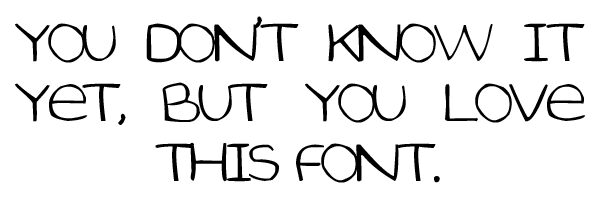
Aida Garmo - Small Size by Aida Garmo is a free handwritten font with tall, loose letters and a fine monoline stroke. Its rounded loops, uneven widths, and sudden narrow joins give the lettering the direct look of a quick marker sketch.
It can turn a cafe logo or boutique label into a personal handwritten mark. The same informal shape suits greeting cards, menu boards, and craft packaging. In branding, the stretched letters can become part of the product's illustrated identity rather than a neutral name.